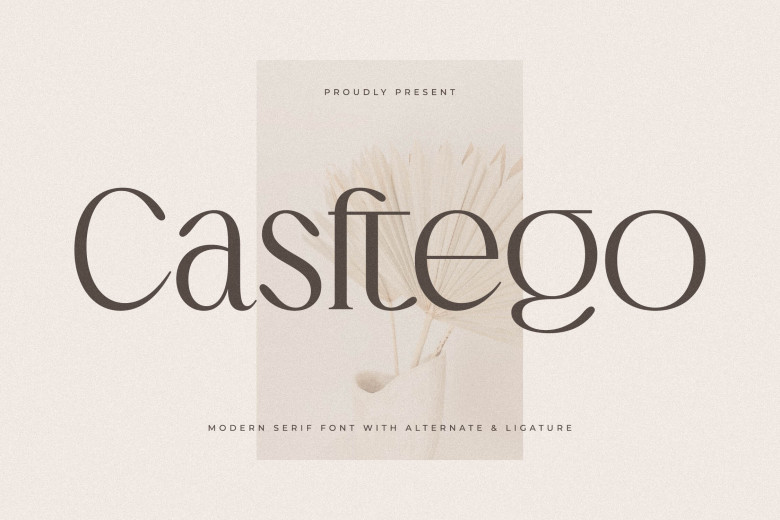
Casftego Font
Casftego can be described as an elegant and modern serif typeface with an exquisite design and modern appearance, ideal for creating sophisticated and luxurious logos, book or film styles, fashion label clothing labelings, magazine letters and quotes among many other uses.
Casftego Serif Font